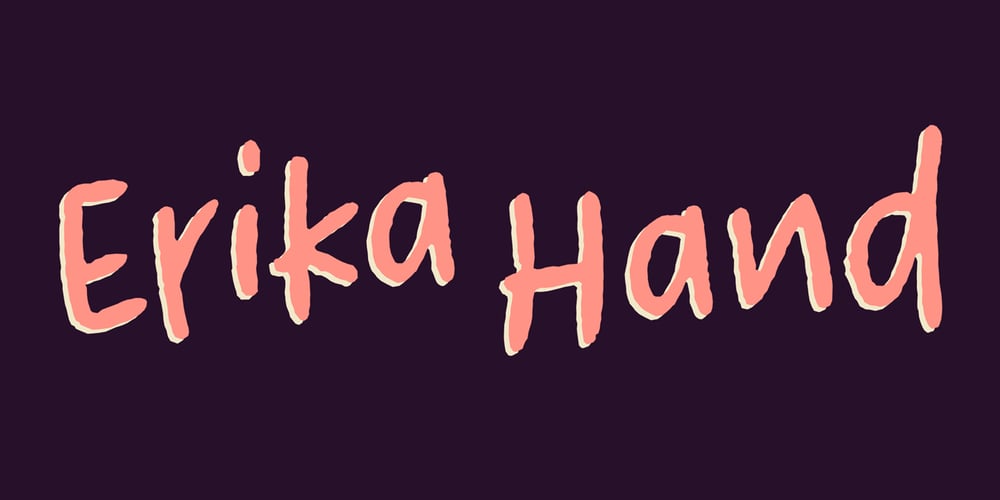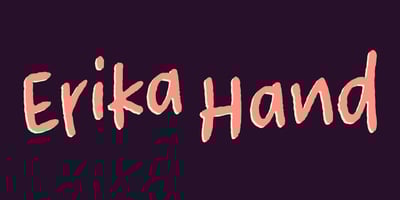
Erika Hand Font Family was designed by Frode Helland and published by Indian Type Foundry. Erika Hand contains 1 styles and family package options. Erika Hand is an informal handwriting font with rough edges. The handwriting style used by the Indian Type Foundry to design the font was very casual. The letters do not connect; each is its own independent shape. The lowercase has a tall x-height, and the capitals are rather short, looking almost like small caps. There is variety in terms of these capitals’ sizes, though, as well as with the lengths of the lowercase ascenders and descenders. Characters also don’t all share a common baseline – in other words, exactly what you would expect from a contemporary handwriting style like Erika Hand’s. This font really does look like the everyday sort of handwriting you might use for note-taking, writing shopping lists or greeting cards, and anything else that get jotted down quickly.